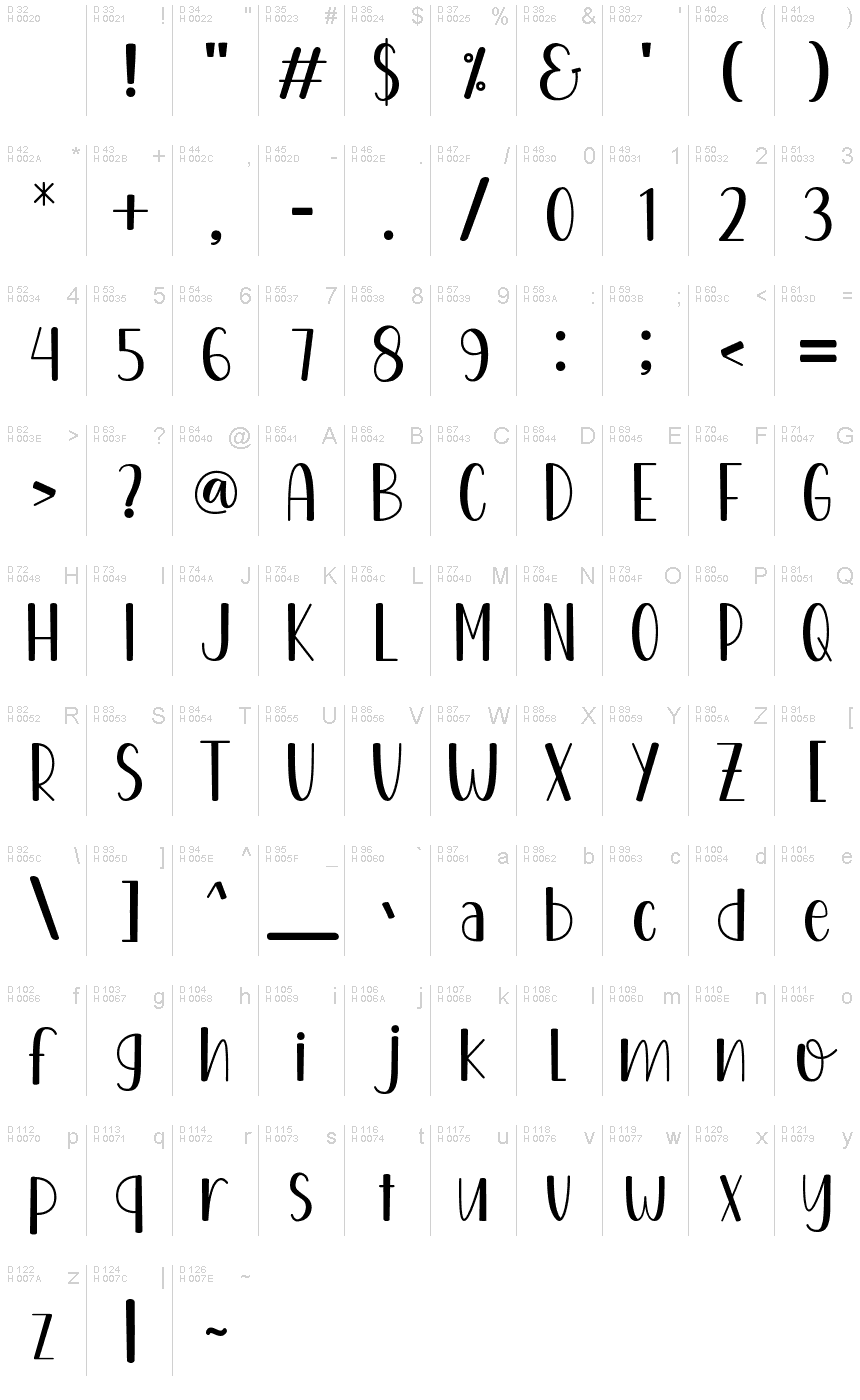
hello farmer
Hello Farmer, a captivating display font designed by AM Designs, is here to add a touch of rustic charm to your projects. With its semi-condensed width, this font exudes a sense of modernity and elegance.
Perfect for branding agricultural businesses, organic food products, or farm-to-table restaurants, Hello Farmer will effortlessly embody the essence of the countryside. Its unique style and versatile nature also make it suitable for invitations, packaging design, or any project that requires a warm and inviting feel.
Let Hello Farmer be the seed that nourishes your creative endeavors!